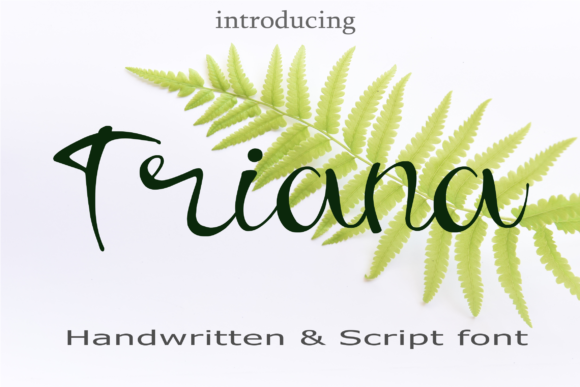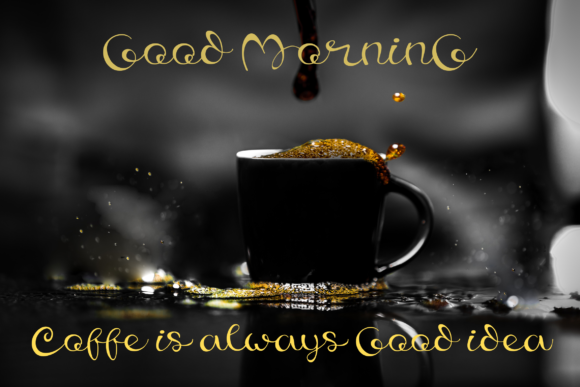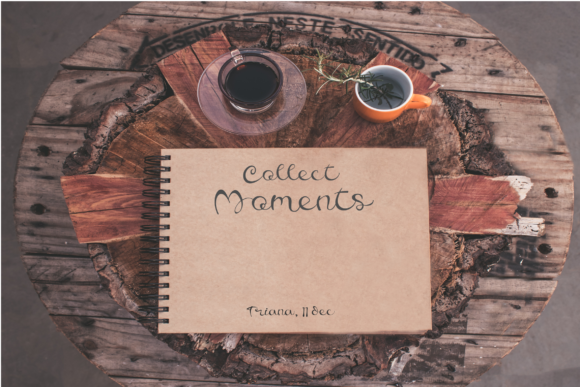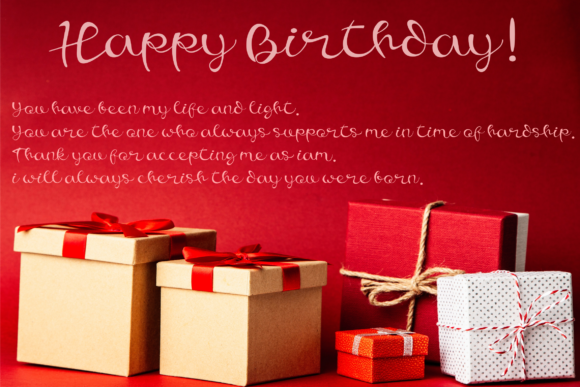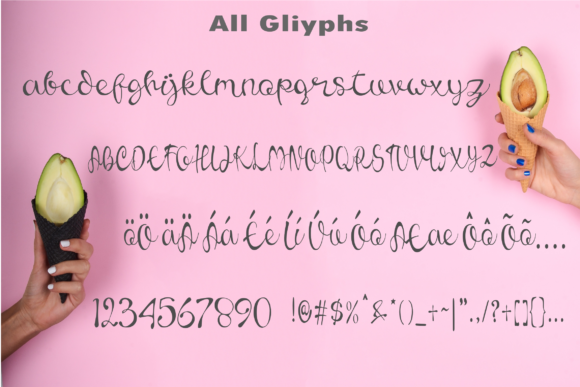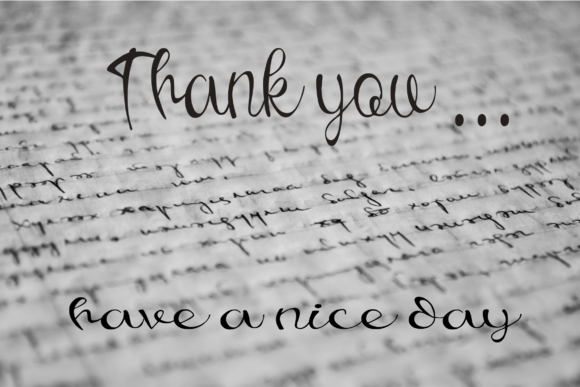
Triana Font
About Triana Font
Triana is a simple and versatile handwritten font perfectly tailored for adding that unique touch to a wide variety of design projects!